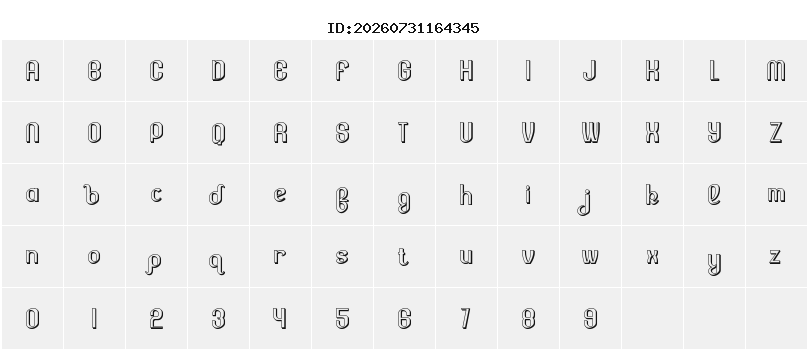
• Font Name: Lesser Concern Shadow
• Designer: Ray Larabie
About Lesser Concern Shadow.ttf
Lesser Concern Shadow.ttf is a modern, elegant sans-serif font designed for ultimate readability and visual harmony. Perfect for branding, headlines, web design, and print materials.